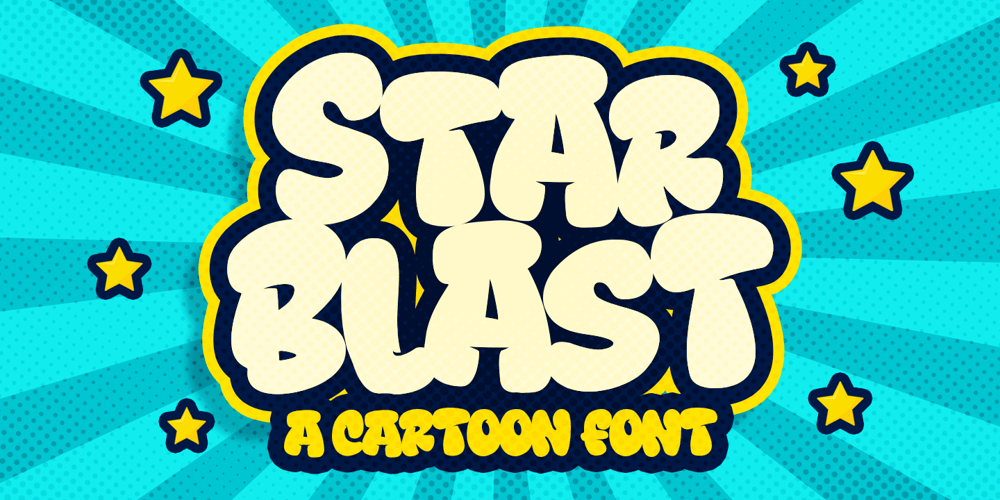
Star Blast Font Family was designed by Bangkit Tri Setiadi and published by Blankids. Star Blast contains 2 styles and family package options. Introducing of our new product the name is Star Blast a Playful Cartoon Font, Star Blast inspired by playful style with a fun theme very good for kids theme design.FEATURES : Uppercase Lowercase Number Punctuation Multilingual PUA Encode Opentype